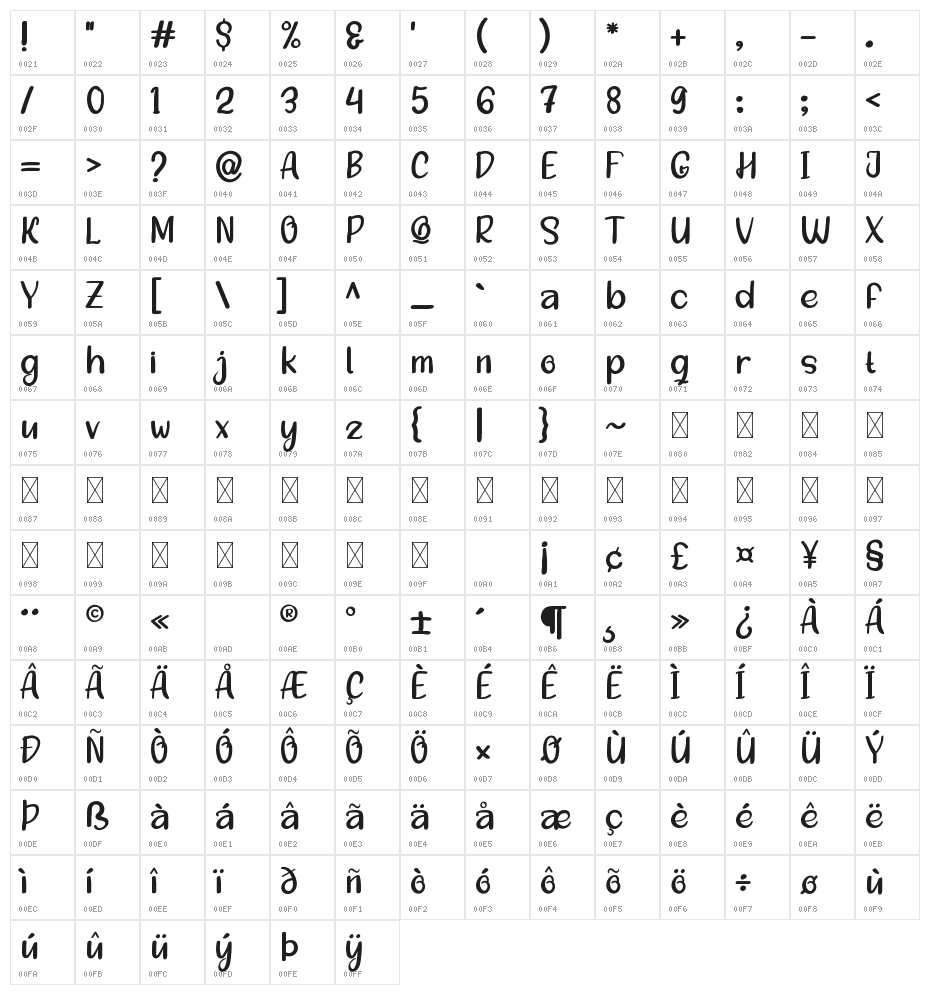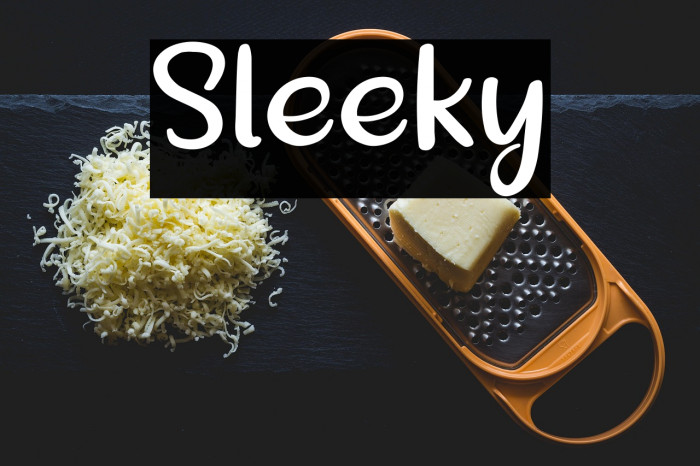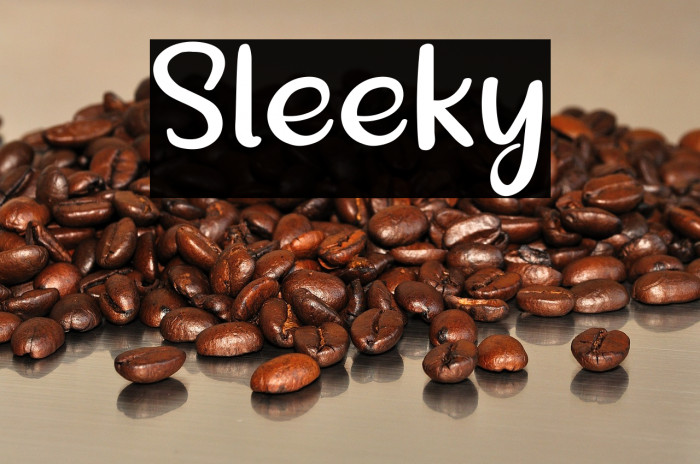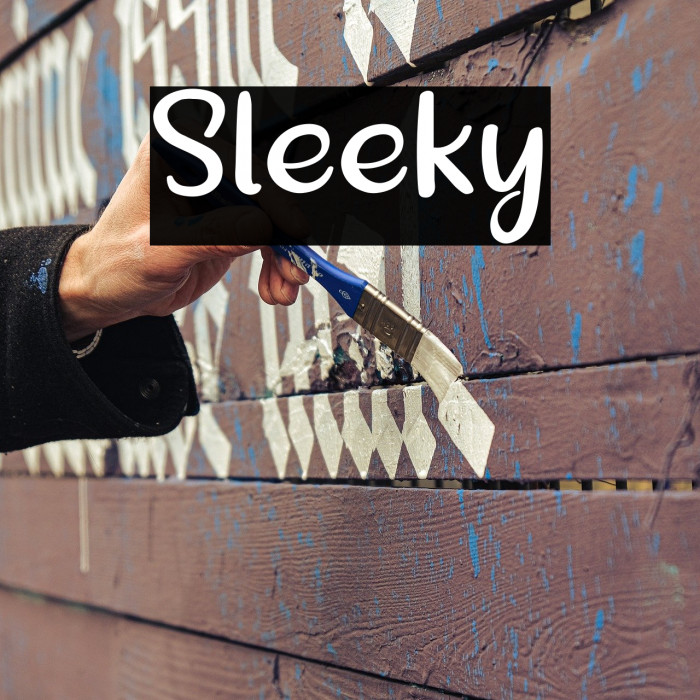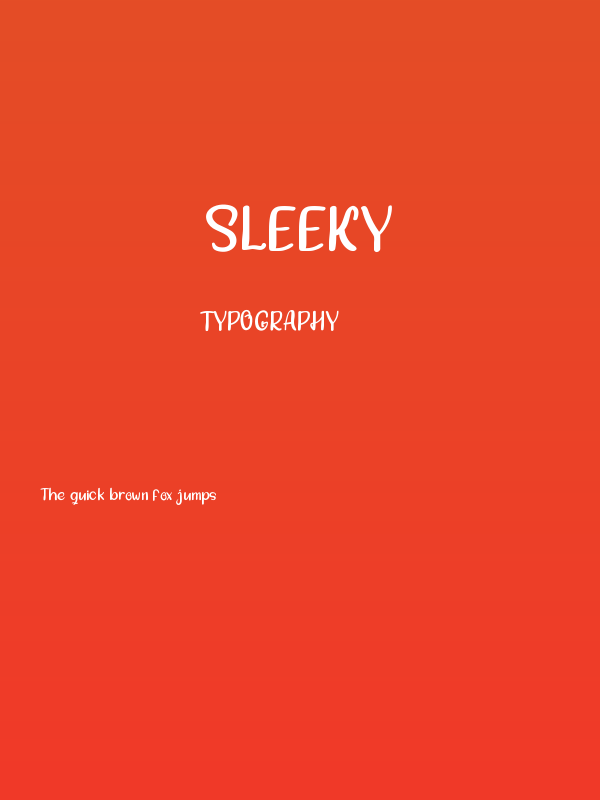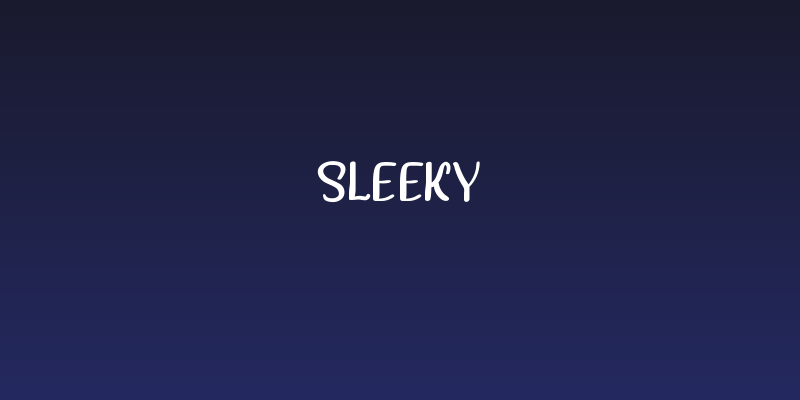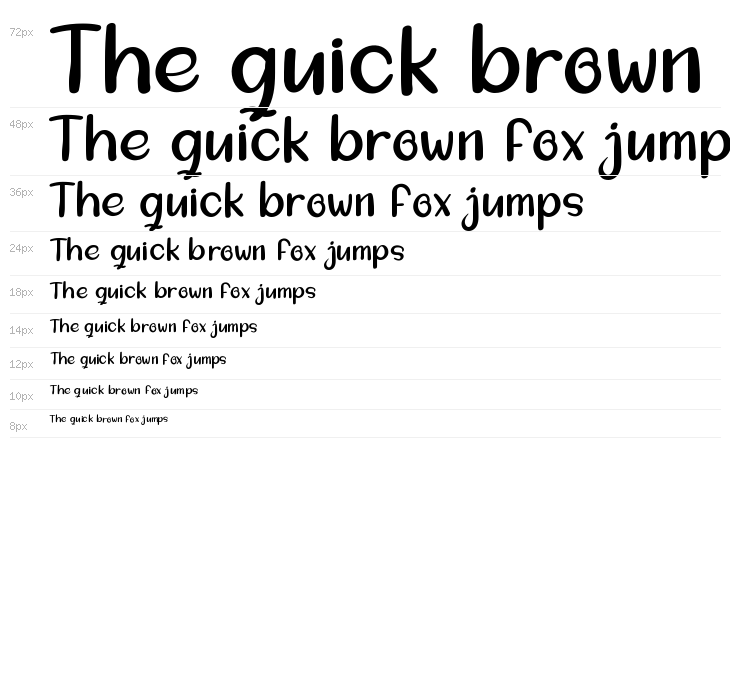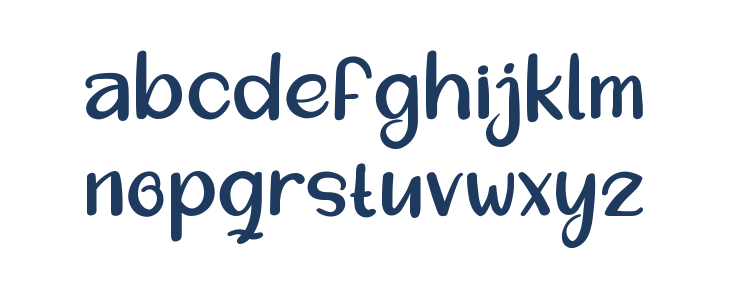
Sleeky Font
Sleeky Description
This font features a playful and rounded style with a handwritten feel. The characters are bold and slightly irregular, giving a casual and friendly appearance. The uppercase letters are consistent in height, while the lowercase letters have a slight slant, adding to the informal vibe. The numbers and special characters maintain the same playful aesthetic, making the font versatile for various uses. The strokes are smooth and consistent, with medium contrast, which enhances readability while maintaining a unique character.
| Use Case | Headlines, Logos, Social media graphics |
| Proposed Projects | Ideal for children's books, casual invitations, playful branding, and social media graphics. |